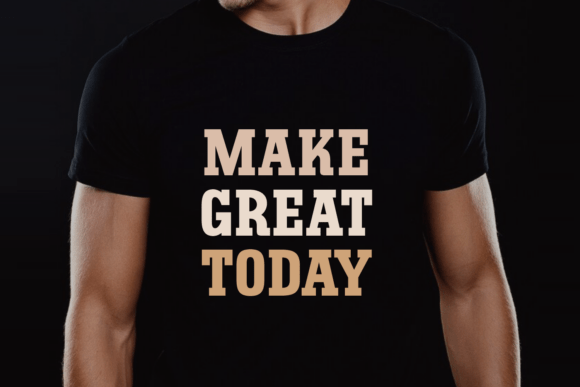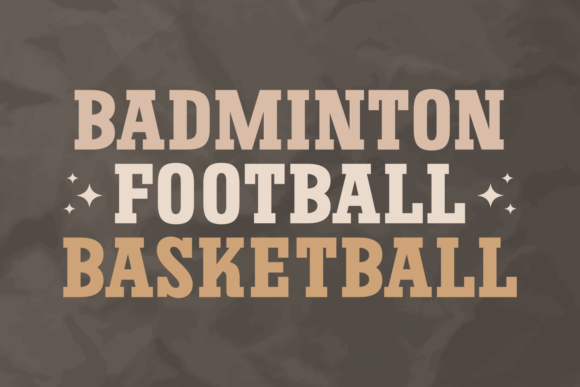
Introduction to Sharp Opinion Font
Sharp Opinion is a bold and striking slab serif typeface inspired by the timeless spirit of sport and classic athletic design.
Crafted with thick, confident strokes and sharp edges, it brings a powerful presence to any design It’s perfect for posters, logos, sportswear branding, headline, and bold marketing materials.